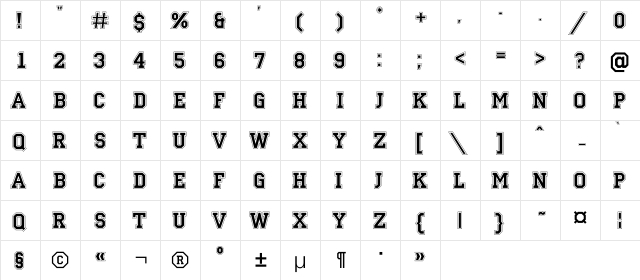
a_CampusGrav Regular
Design Context for a_CampusGrav Typeface
a_CampusGrav takes a measured approach to typography — its balanced proportions and neutral character make it a reliable workhorse for both digital and print work.